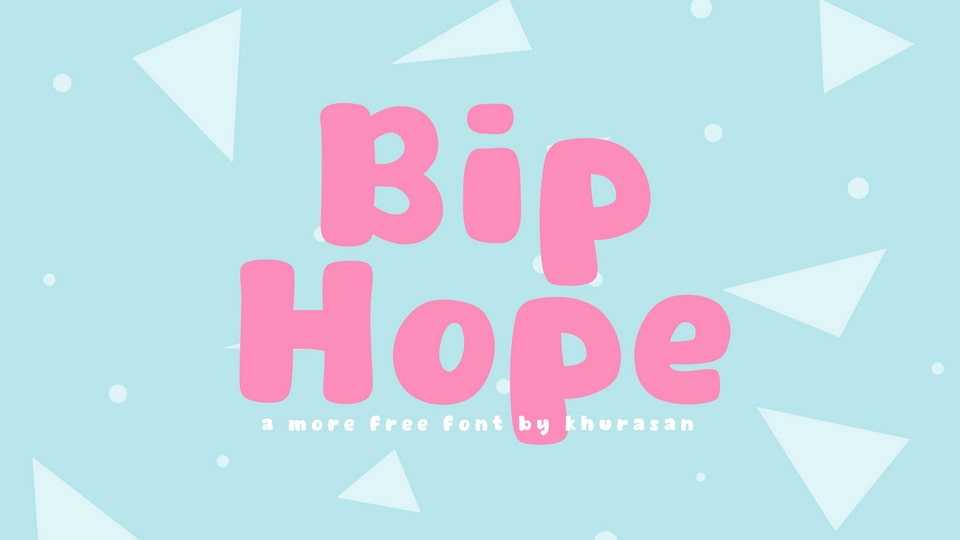
Download Bip Hope font, a hand-drawn typeface that brings a cheerful and funny look to your designs. With its rounded letters and playful details, it feels like each character is telling a joke.